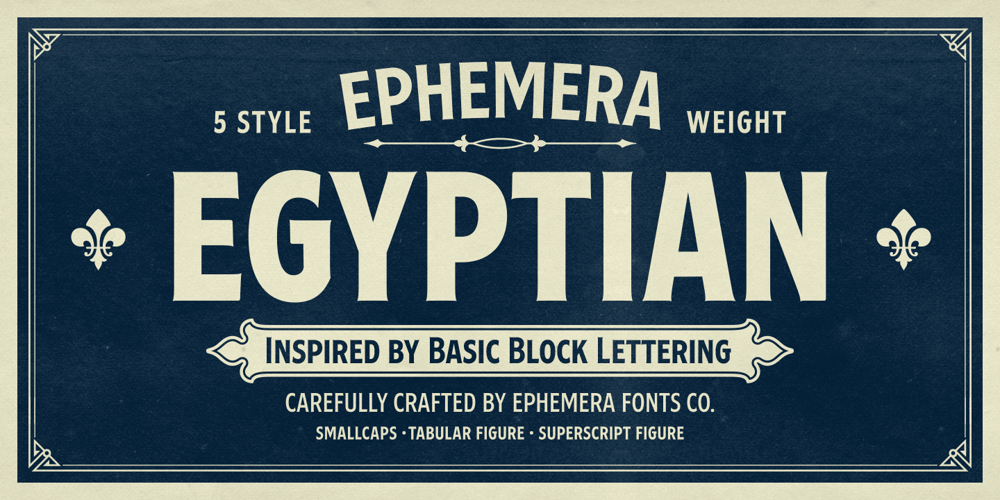
Ephemera Egyptian
Ephemera Egyptian font
Ephemera Egyptian Font Family was designed by Ilham Herry and published by Ephemera Fonts. Ephemera Egyptian contains 6 styles and family package options. Egyptian ephemera is a typeface inspired from basic block lettering, widely used in art and craft of sign writing.5 styles available from light to bold. and for the first time it is also available as variable fonts. One of the uniqueness of this font is the small spur on each stem, and the terminal, which intends to simulate an entry and end brush stroke.OpenType features support such as Smallcaps, Tabular Figure, Superscript, and 2 alternate of ampersands.This typeface was created for Display needs, such as headlines, signage, logotype, badges design, packaging, etc.